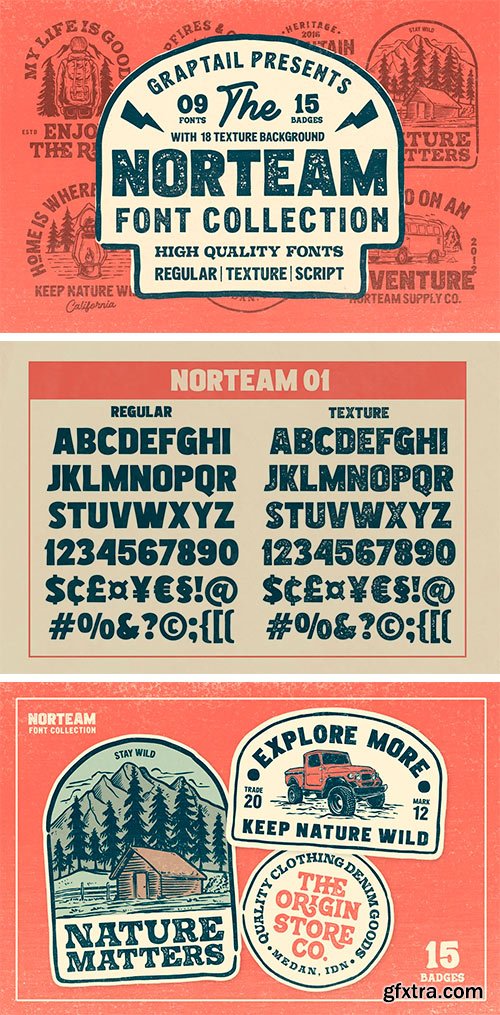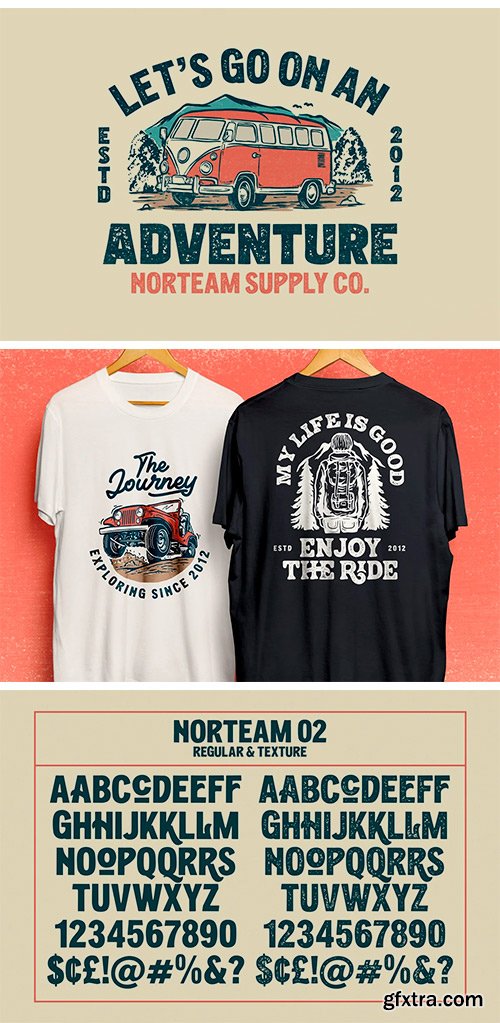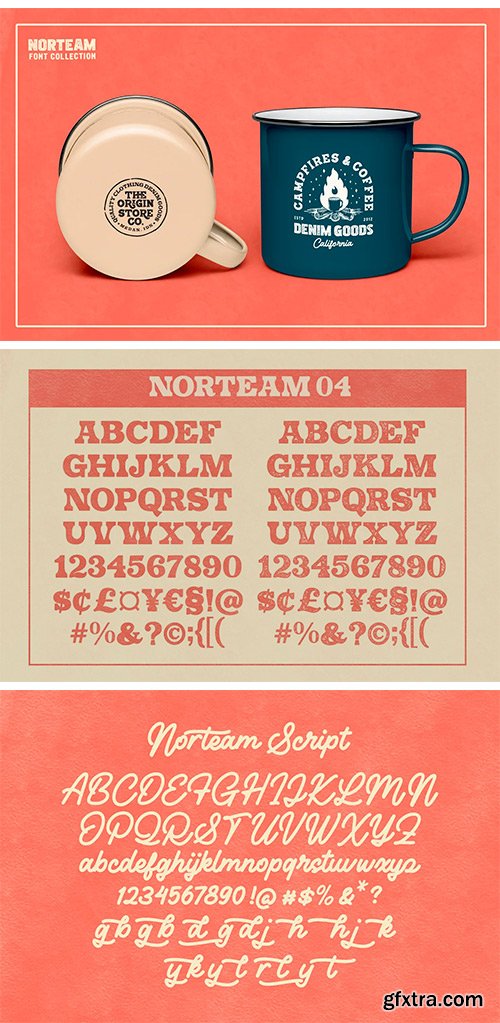
Introducing – Norteam Handcrafted Font Collection! Including 9 font styles! Textured, Clean & Script, enjoy! :) Norteam Fonts collection contains a set of 4 textured fonts and 5 clean fonts with an authentic hand crafted look. The fonts are inspired by vintage shirt designs and they work perfectly for logos, packaging or title designs with a handcrafted vibe.